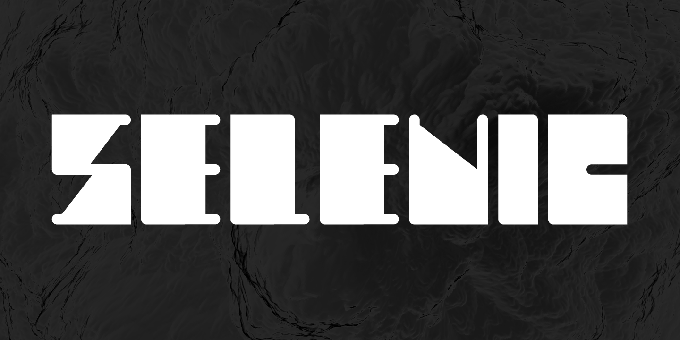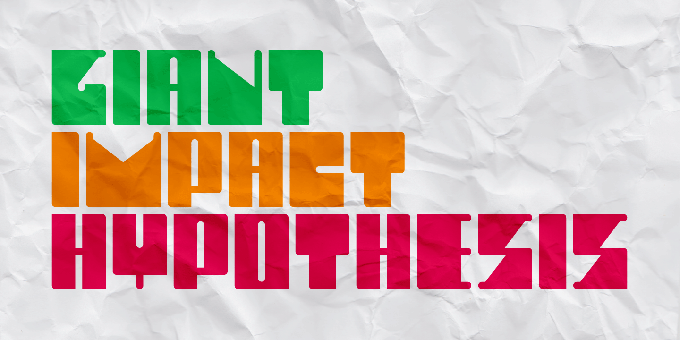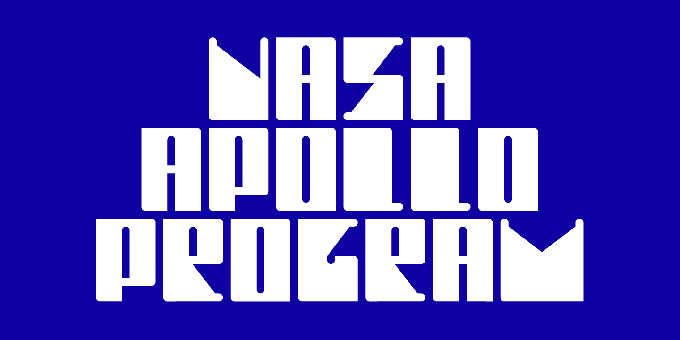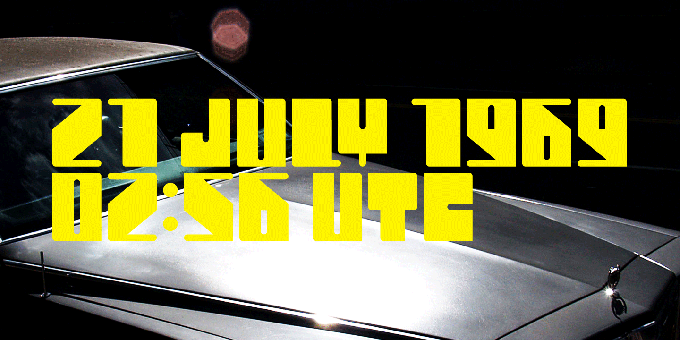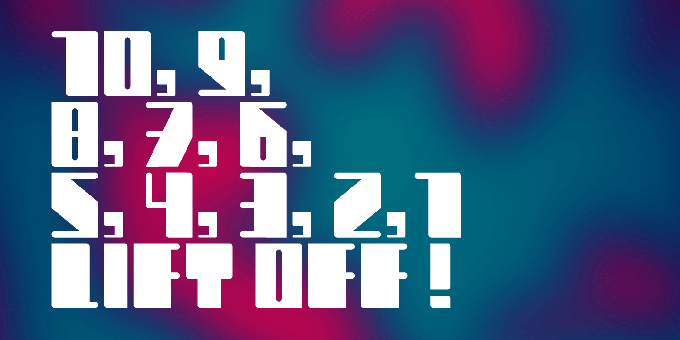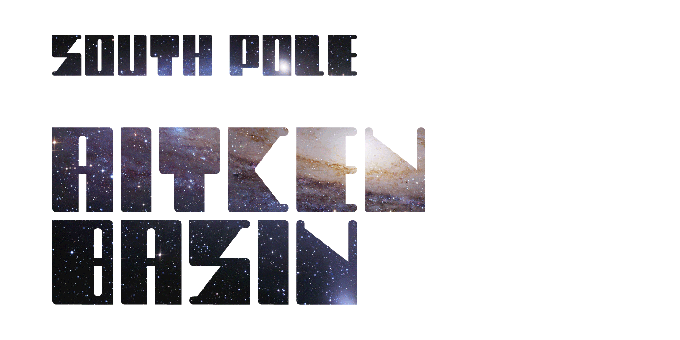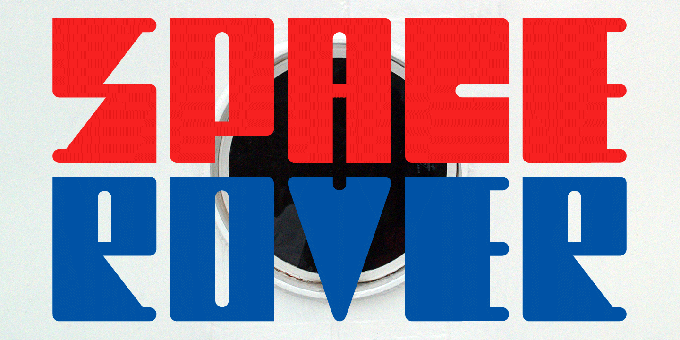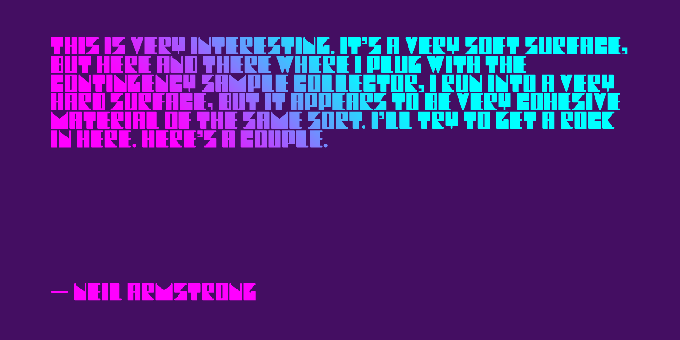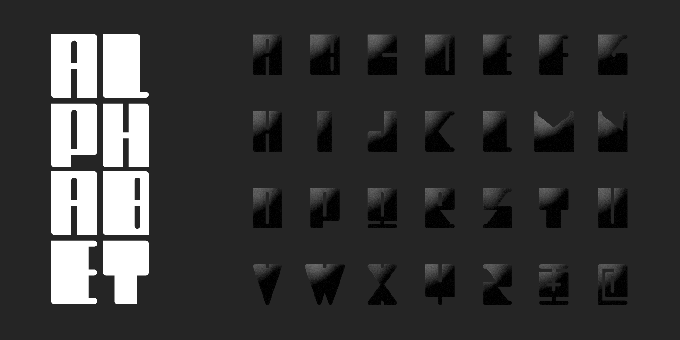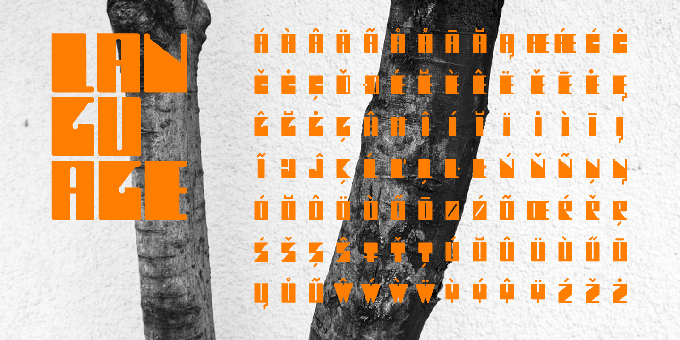
Selenic
Selenic is a solid typeface with a clean look, interesting texture and quick impact. Friendly but also aggressive it is best suited for massive headlines, fashion photography, album covers, logo design or any other typographical work on digital and print.